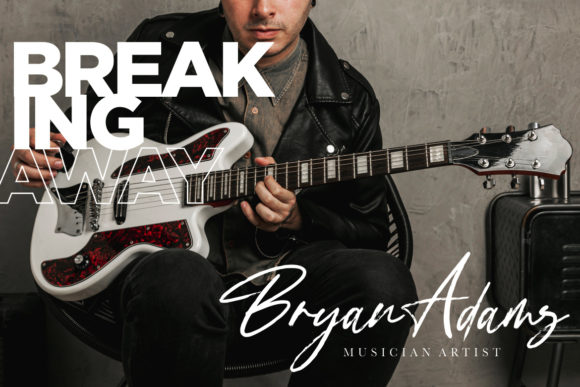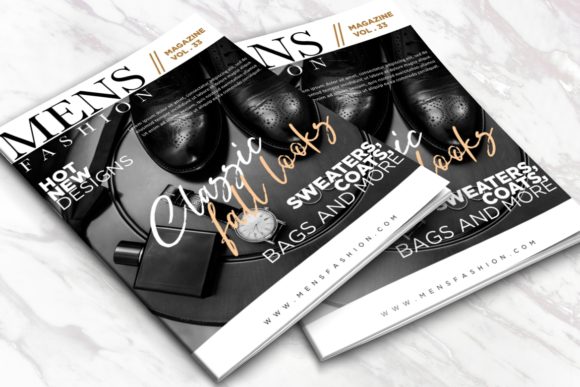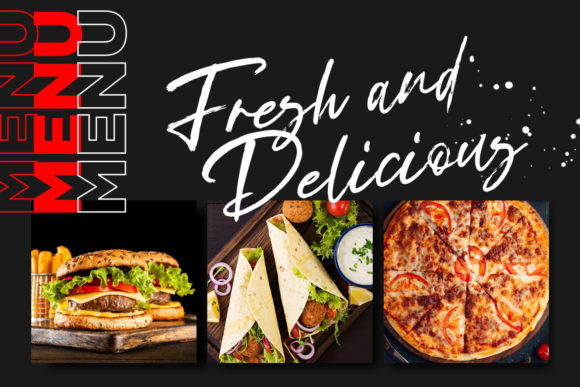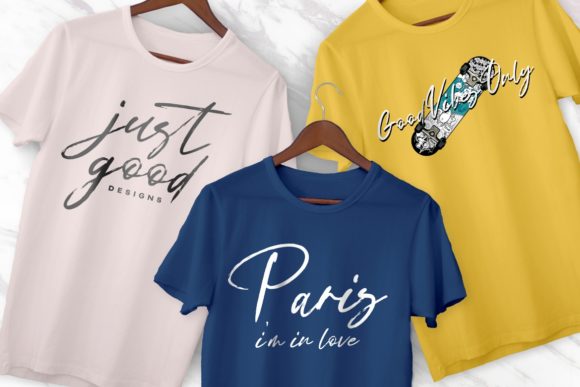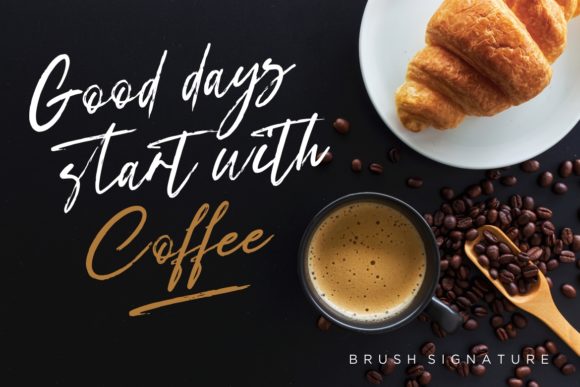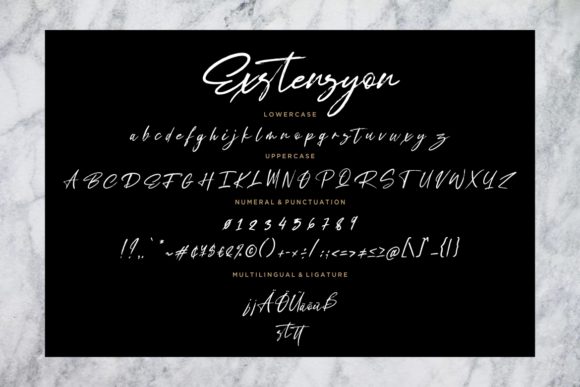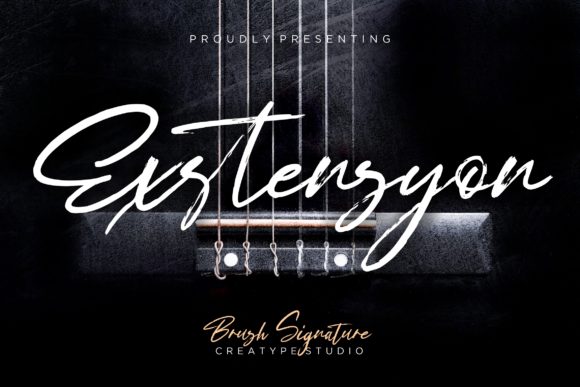
Introducing Exstensyon Font: Elevate Your Designs with a Versatile Handwritten Brush Font
Are you on the hunt for a font that can effortlessly transition from formal to non-formal designs? Look no further than Exstensyon Font, an incredibly versatile handwritten brush font that is sure to take your designs to the next level. With its neat and beautiful arrangement of letters, Exstensyon is the perfect addition to any designer’s toolkit.
What Makes Exstensyon Font So Special?
Exstensyon Font boasts a unique blend of elegance and playfulness, making it an excellent choice for a wide range of design projects. Its handwritten brush style gives it a personal and organic feel, while its neat arrangement of letters ensures that it remains highly legible, even at smaller font sizes.
One of the standout features of Exstensyon Font is its versatility. Whether you’re working on a formal design project, such as a luxury brand’s logo or a wedding invitation, or a non-formal project, like a social media graphic or a craft blog post, Exstensyon Font is up to the task. Its adaptability makes it an excellent addition to any designer’s font library.
Key Features of Exstensyon Font
- Handwritten Brush Style: Exstensyon Font features a beautiful, handwritten brush style that adds a personal touch to any design.
- Neat and Legible: Despite its handwritten nature, Exstensyon Font remains highly legible, even at smaller font sizes.
- Versatile: Exstensyon Font is suitable for both formal and non-formal design projects, making it an excellent addition to any designer’s toolkit.
- Elegant and Playful: Exstensyon Font strikes the perfect balance between elegance and playfulness, making it perfect for a wide range of design applications.
Uses for Exstensyon Font
Exstensyon Font is incredibly versatile, and its uses are endless. Here are a few ideas to get you started:
- Logo Design: Exstensyon Font is perfect for creating custom logos for businesses, especially those in creative or lifestyle industries.
- Wedding Invitations: Add a touch of elegance and whimsy to your wedding invitations with Exstensyon Font.
- Social Media Graphics: Use Exstensyon Font to create eye-catching social media graphics that stand out from the crowd.
- Craft Blog Posts: Exstensyon Font is a great choice for craft blog posts, adding a personal touch to your tutorials and guides.
- Stationery: Create beautiful stationery, such as letterheads, business cards, and thank you cards, with Exstensyon Font.
Tips for Using Exstensyon Font
To get the most out of Exstensyon Font, here are a few tips to keep in mind:
- Experiment with Font Sizes: Exstensyon Font looks great at a variety of font sizes, so don’t be afraid to experiment to find the perfect size for your design.
- Pair with Other Fonts: Exstensyon Font pairs well with a range of other fonts, so try combining it with a sans-serif font for added contrast.
- Use for Headlines and Titles: Exstensyon Font is perfect for headlines and titles, adding a touch of elegance and whimsy to your design.
Exstensyon Font is an incredibly versatile handwritten brush font that is sure to elevate your designs. With its neat and beautiful arrangement of letters, Exstensyon Font is perfect for both formal and non-formal design projects. Whether you’re a designer, crafter, or DIY enthusiast, Exstensyon Font is an excellent addition to your toolkit.